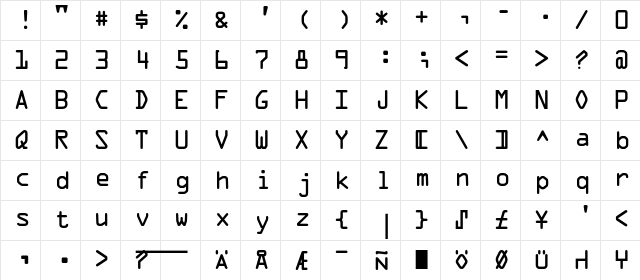
OCRA Regular
Design Context for OCRA Typeface
OCRA is a composed and adaptable typeface that performs quietly and consistently across a wide range of design contexts.
Originally released in 1988, this typeface is available in OpenType (OTF) format.
Pro Tip: Pair OCRA with a font of contrasting weight or personality to build a more expressive typographic hierarchy.